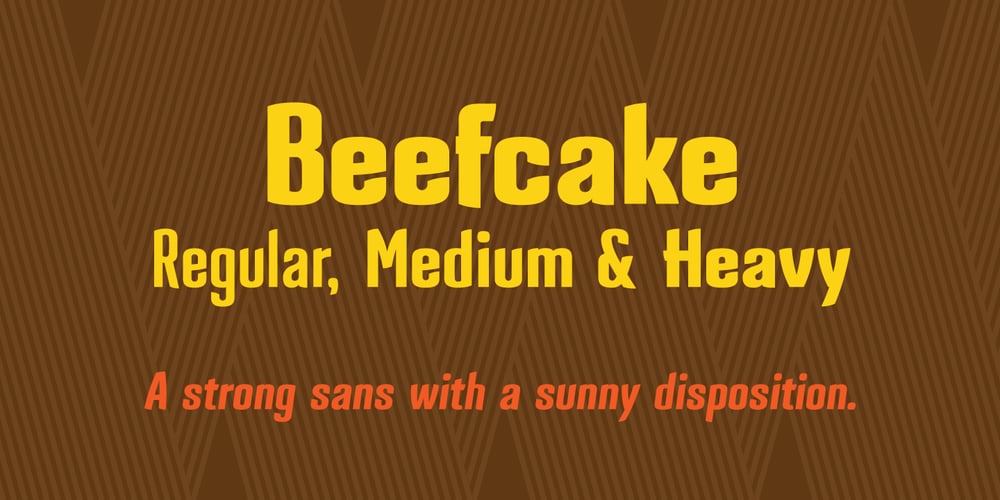
Beefcake Font Family was designed by Paul Sirmon and published by 9 Crows Type Foundry. Beefcake contains 17 styles and family package options. Beefcake treads the line of serious and playful. Just enough attitude to kick its legs over the baseline but not so much that it becomes annoying. If Beefcake had a chip on its shoulder they were knocked off as you can see by the softened corners. The angled terminals are fan favorites and the extent of its playfulness. On the other hand the strong back and hefty line weights let you know it’s willing to put in some long hours and carry a burden. Beefcake is a perfect choice for those times when the typographic personality needs to be strong, but not take itself too seriously.